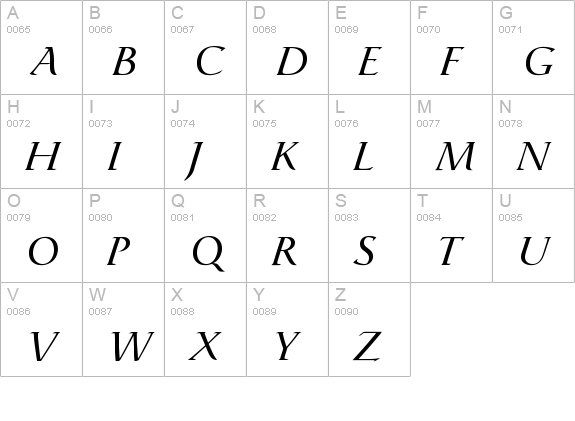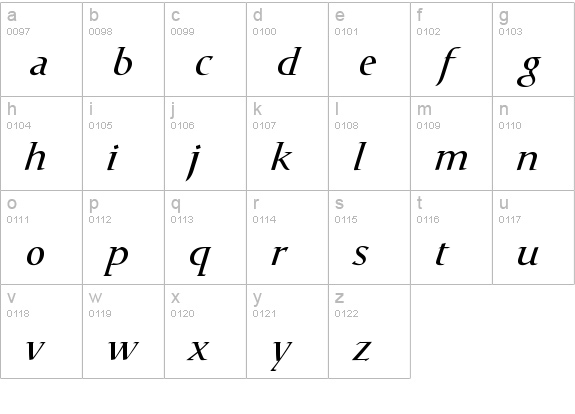
Catull BQ Italic Font Details
Catull BQ Italic is a distinctive, italic variant in the Catull typeface family \xE2\x80\x94 well suited to design and typography projects.
Catull BQ Italic is a sophisticated and elegant font that effortlessly combines classic and modern elements. Its flowing and graceful italic design adds a touch of style to any project, making it perfect for invitations, stationery, branding, and more. The subtle curves and slanted angles of this font create a sense of movement and fluidity, adding a dynamic flair to your text. What sets Catull BQ Italic apart is its versatility and readability, making it suitable for both display and body text. Whether you're designing a wedding invitation or a professional presentation, this font will elevate your project with its refined aesthetic. Best of all, Catull BQ Italic is available for free download at FontsMarket.com, making it easily accessible for anyone looking to add a touch of elegance to their designs. Download this stunning font today and see how it can enhance your next creative project.